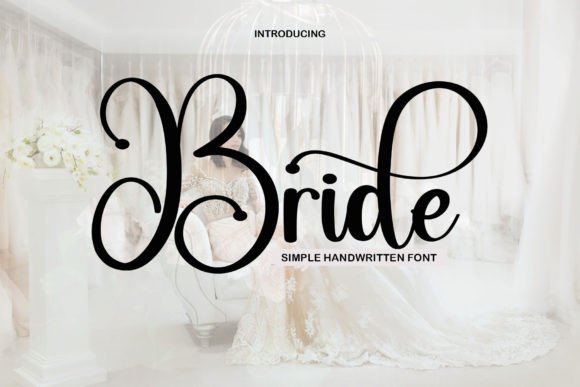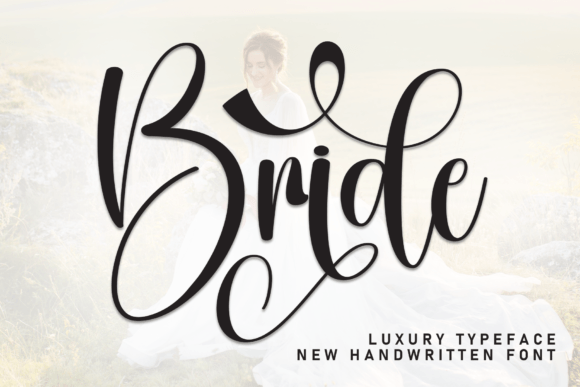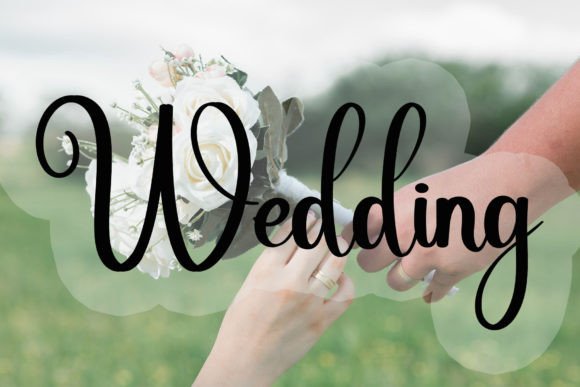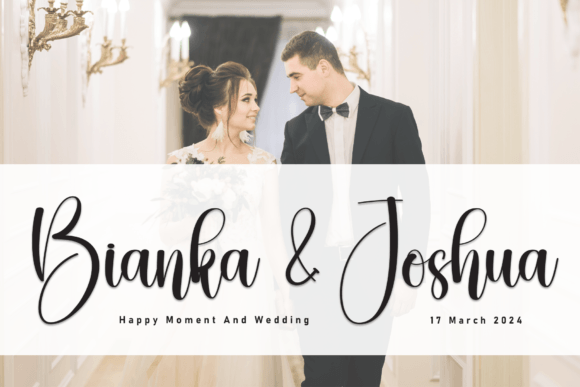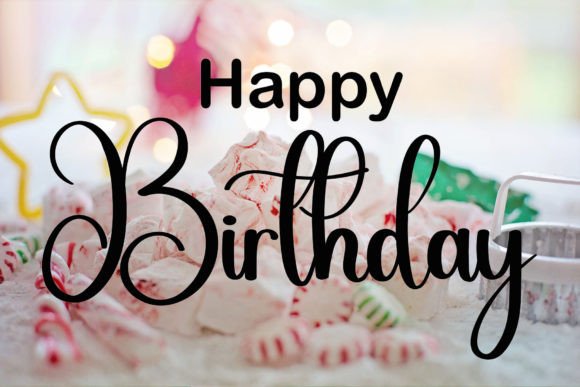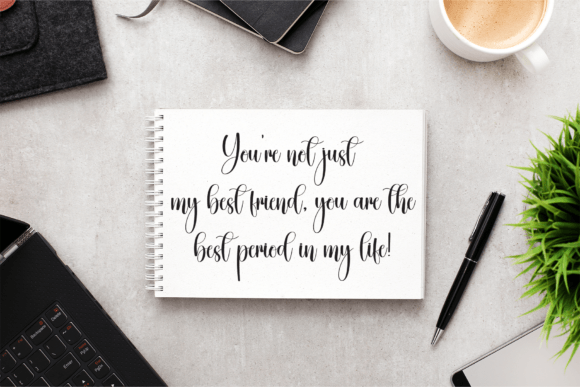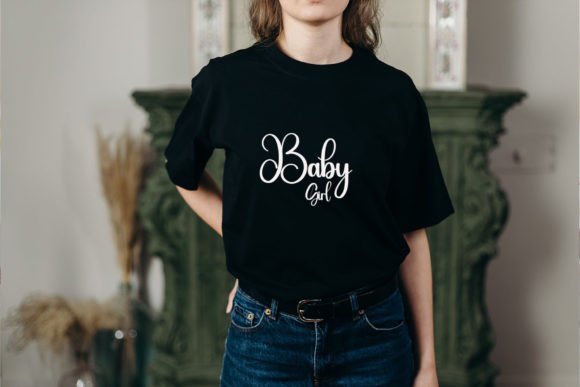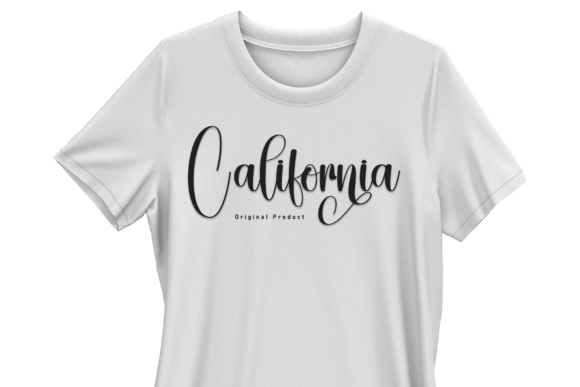
About the Bride Font
The wait is over! The incredible Bride Font is now available for your design toolkit. Bride is a trendy handwritten font with a contemporary atmosphere and impeccable form, inspired by timeless classic calligraphy. It will add elegance and class to any of your design projects. This font can be used to write various kinds of products according to the aspect of each need.
Bride’s elegant, yet contemporary feel makes it ideal for projects requiring a touch of sophisticated handwritten charm. It excels in headlines, logos, short quotes on invitations or packaging, and social media graphics where its refined strokes shine. Avoid using Bride for extended body text or UI elements; its calligraphic nature reduces readability in large blocks of text.
Pair Bride with a clean sans-serif like Montserrat for a modern contrast, or a classic serif like Garamond for a more traditional feel. A geometric sans-serif such as Futura could also create a striking juxtaposition, offering a strong, structured balance to Bride’s flowing script.
Bride’s overall personality is sophisticated and stylish, conveying a sense of timeless elegance with a modern twist. It’s well-suited to brands focused on luxury goods, fashion, wedding stationery, or high-end lifestyle products.
Bride Font Usage Examples